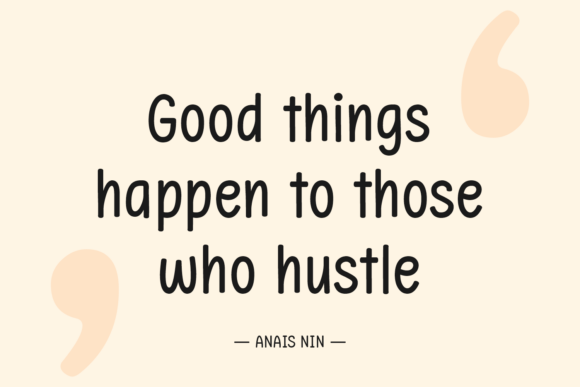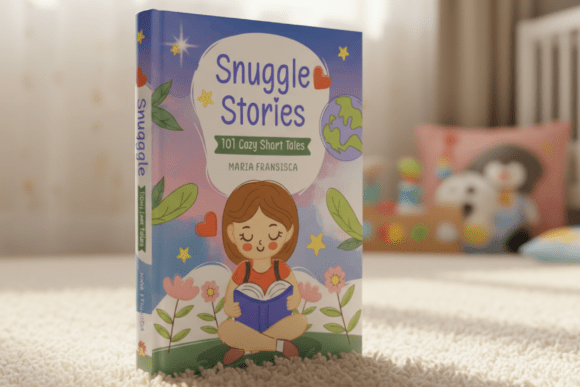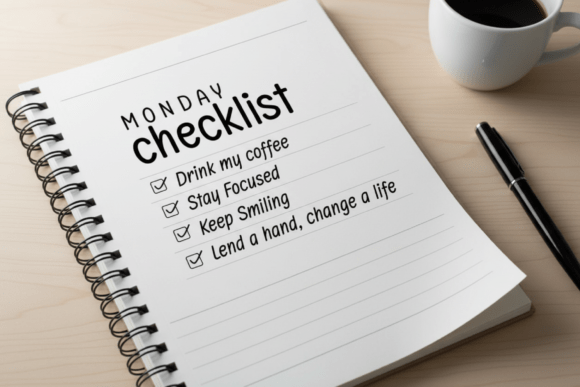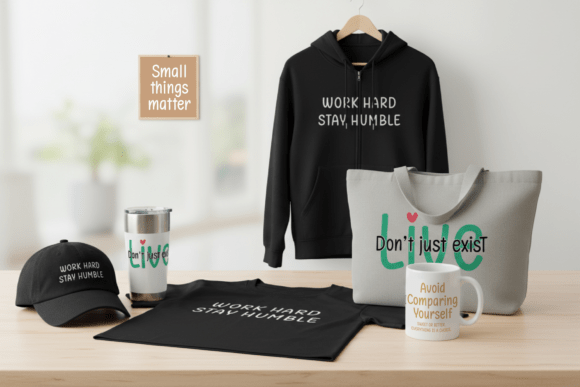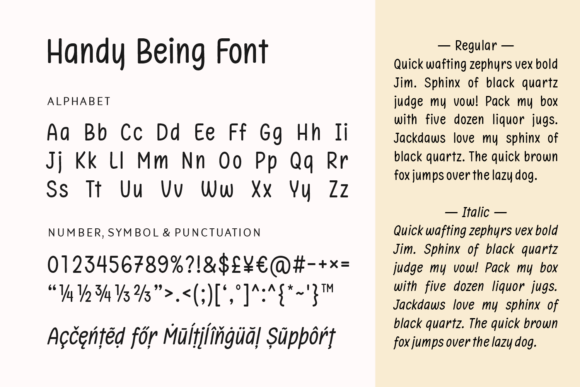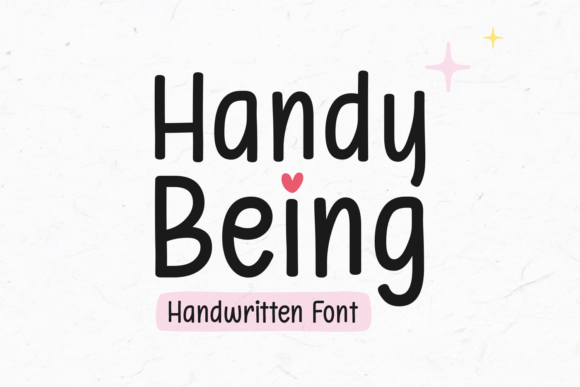
Introducing Handy Being Font: The Charmingly Organic Handwritten Typeface
In the world of digital design, it’s easy to get lost in a sea of generic fonts that lack personality. But what if you could add a touch of warmth and humanity to your creations? Look no further than Handy Being Font, a charmingly organic handwritten typeface that captures the essence of a personal note. With its tall, narrow proportions and friendly, rounded strokes, Handy Being is the perfect choice for designers and crafters looking to add a refreshing human touch to their work.
The Characteristics of Handy Being Font
Handy Being Font boasts a comprehensive character set with full multilingual support, numerical digits, and a robust selection of symbols. Its tall, narrow proportions give it a unique and elegant feel, while its friendly, rounded strokes add a playful touch. This font is designed to be approachable and sincere, making it perfect for a wide range of design applications.
Perfect for Creators of Children’s Book Illustrations
Children’s book illustrations require a special kind of magic, and Handy Being Font is the perfect tool to bring your stories to life. Its clean readability and playful personality make it an excellent choice for titles, captions, and dialogue. With Handy Being, you can create custom illustrations that feel uniquely handcrafted and deeply connected to your young readers.
Cozy Lifestyle Branding Made Easy
Cozy lifestyle branding is all about creating a warm and inviting atmosphere, and Handy Being Font is the perfect fit. Whether you’re designing packaging, labels, or marketing materials, this font will add a touch of authenticity and personality to your brand. Its friendly, approachable feel will make your customers feel like they’re getting a personal note from you, rather than a generic advertisement.
Motivational Social Media Graphics
Social media is all about connecting with your audience, and Handy Being Font is the perfect tool to help you do just that. Its playful personality and clean readability make it perfect for motivational quotes, inspiring stories, and behind-the-scenes glimpses into your creative process. With Handy Being, you can create social media graphics that feel uniquely handcrafted and deeply connected to your followers.
Designing Custom Apparel and Whimsical Book Covers
Handy Being Font is also perfect for designing custom apparel and whimsical book covers. Its tall, narrow proportions and friendly, rounded strokes make it an excellent choice for titles, taglines, and other design elements. With Handy Being, you can create custom designs that feel approachable, sincere, and uniquely handcrafted.
Why Choose Handy Being Font?
So why choose Handy Being Font over other typefaces? Here are just a few reasons:
- Unique and charming personality: Handy Being Font has a one-of-a-kind personality that will set your designs apart from the crowd.
- Clean readability: Despite its playful personality, Handy Being Font is incredibly easy to read, making it perfect for body text and captions.
- Comprehensive character set: With full multilingual support, numerical digits, and a robust selection of symbols, Handy Being Font has everything you need to create stunning designs.
- Approachable and sincere: Handy Being Font is designed to feel approachable and sincere, making it perfect for designs that require a human touch.
In conclusion, Handy Being Font is a charmingly organic handwritten typeface that captures the warmth of a personal note. With its tall, narrow proportions and friendly, rounded strokes, this font is perfect for designers and crafters looking to add a refreshing human touch to their work. Whether you’re creating children’s book illustrations, cozy lifestyle branding, or motivational social media graphics, Handy Being Font is the perfect choice. So why wait? Download Handy Being Font today and start creating designs that feel uniquely handcrafted and deeply connected to your audience.